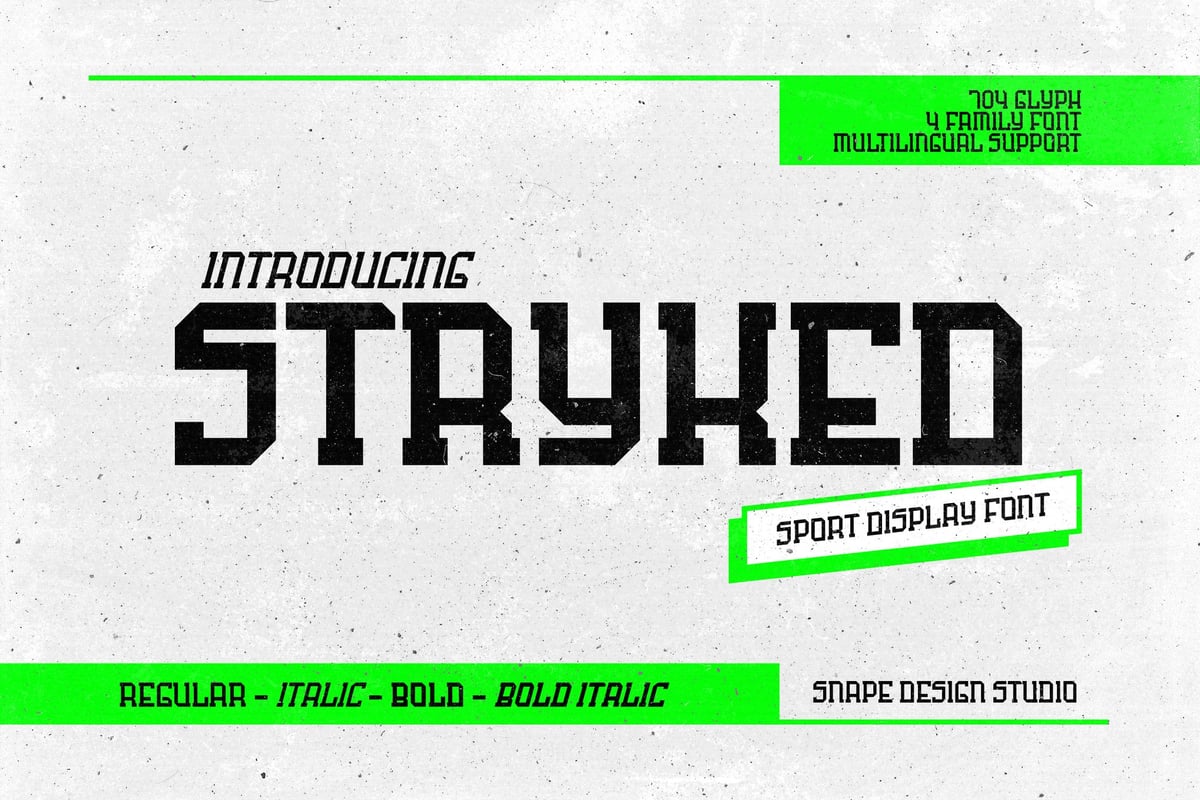
Stryked - Sport Font
Make your sports designs pack a punch with Stryked - the bold athletic font built for winners. Stryked delivers the powerful, attention-grabbing presence your sport-inspired projects demand. This vibrant typeface adds dynamic energy to any design that needs to stand out from the competition. Perfect for sport designs, team branding, jersey lettering, league graphics, movie titles, documentaries, film projects, logos, posters, gaming interfaces, book covers, headlines, and countless other bold ap...